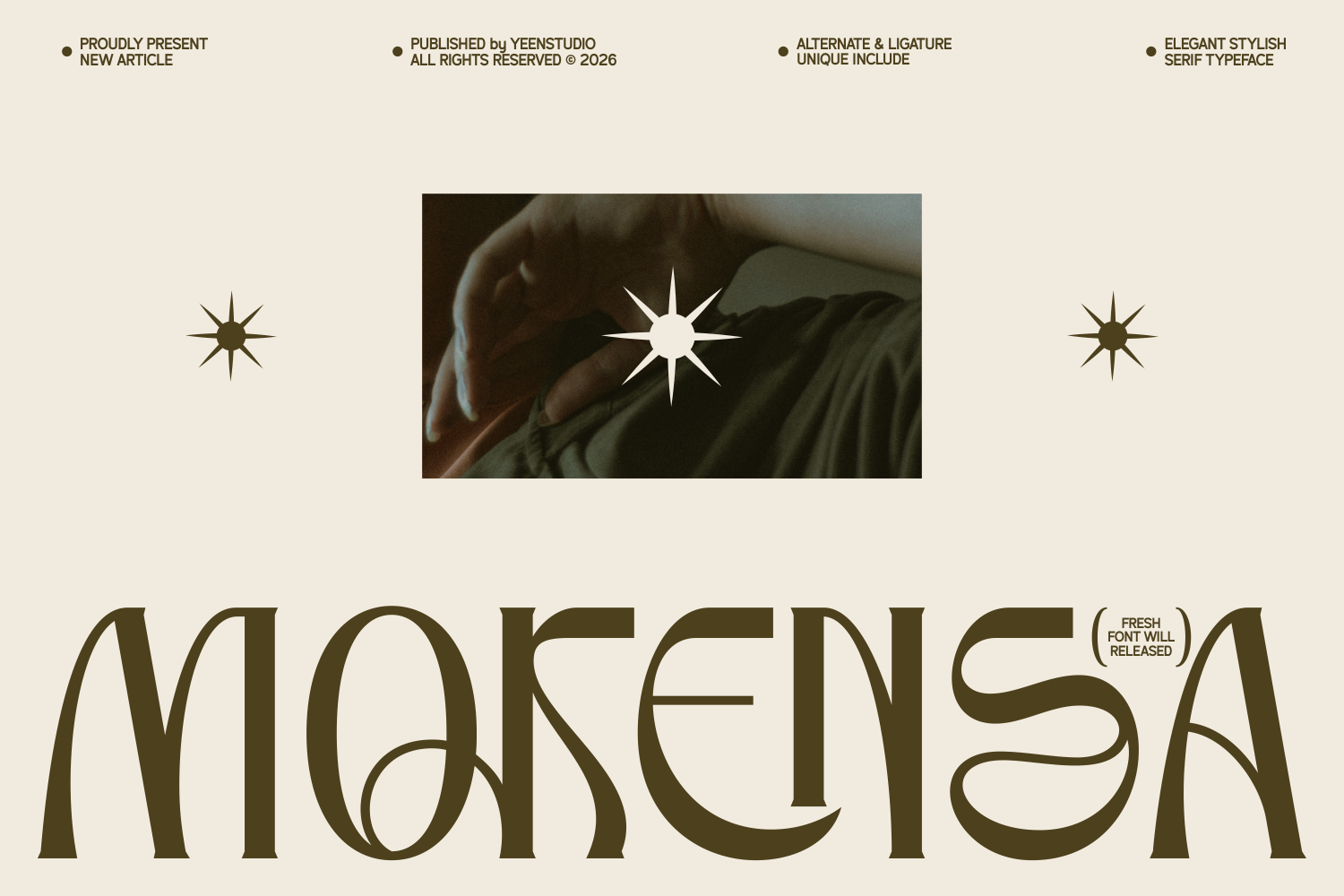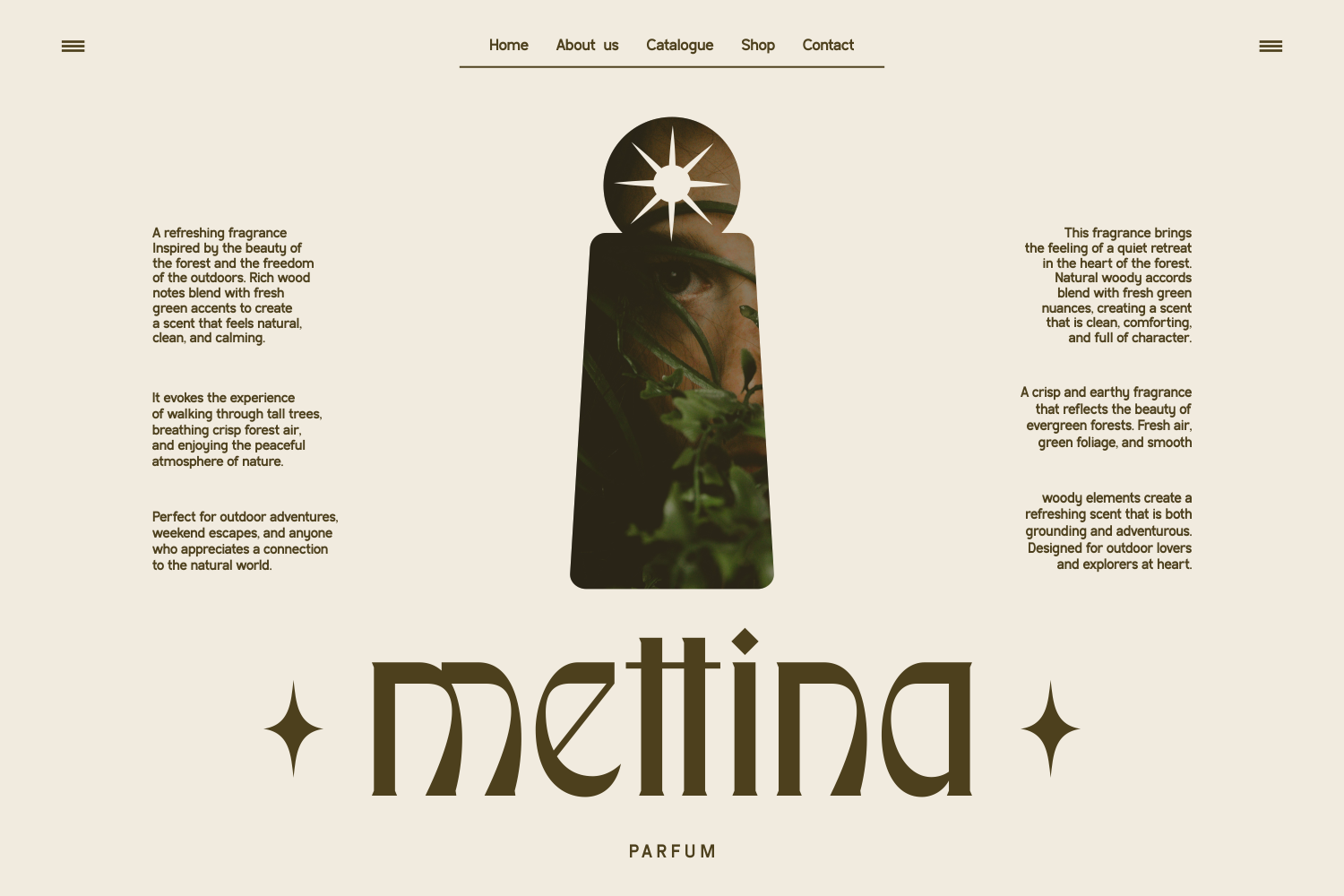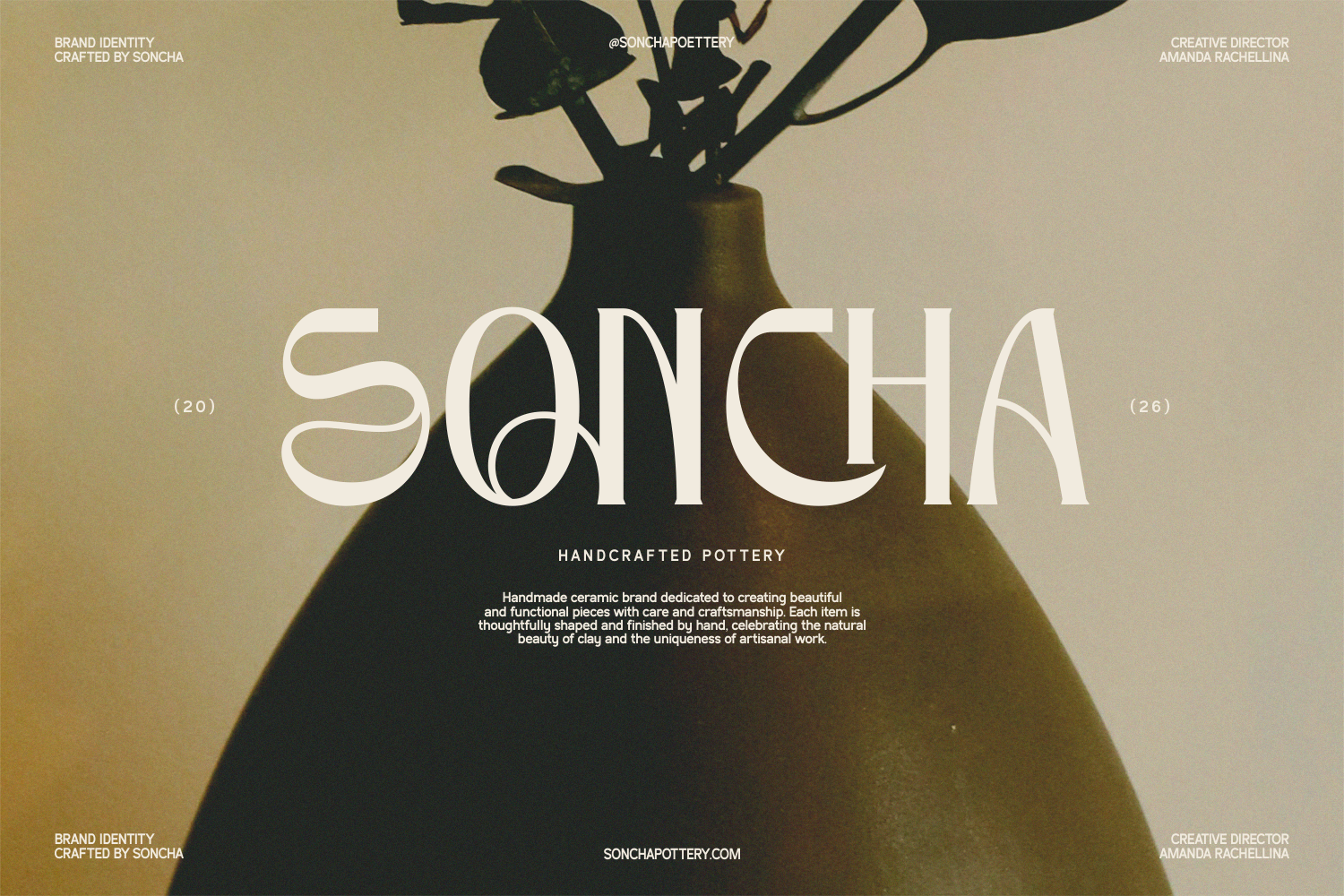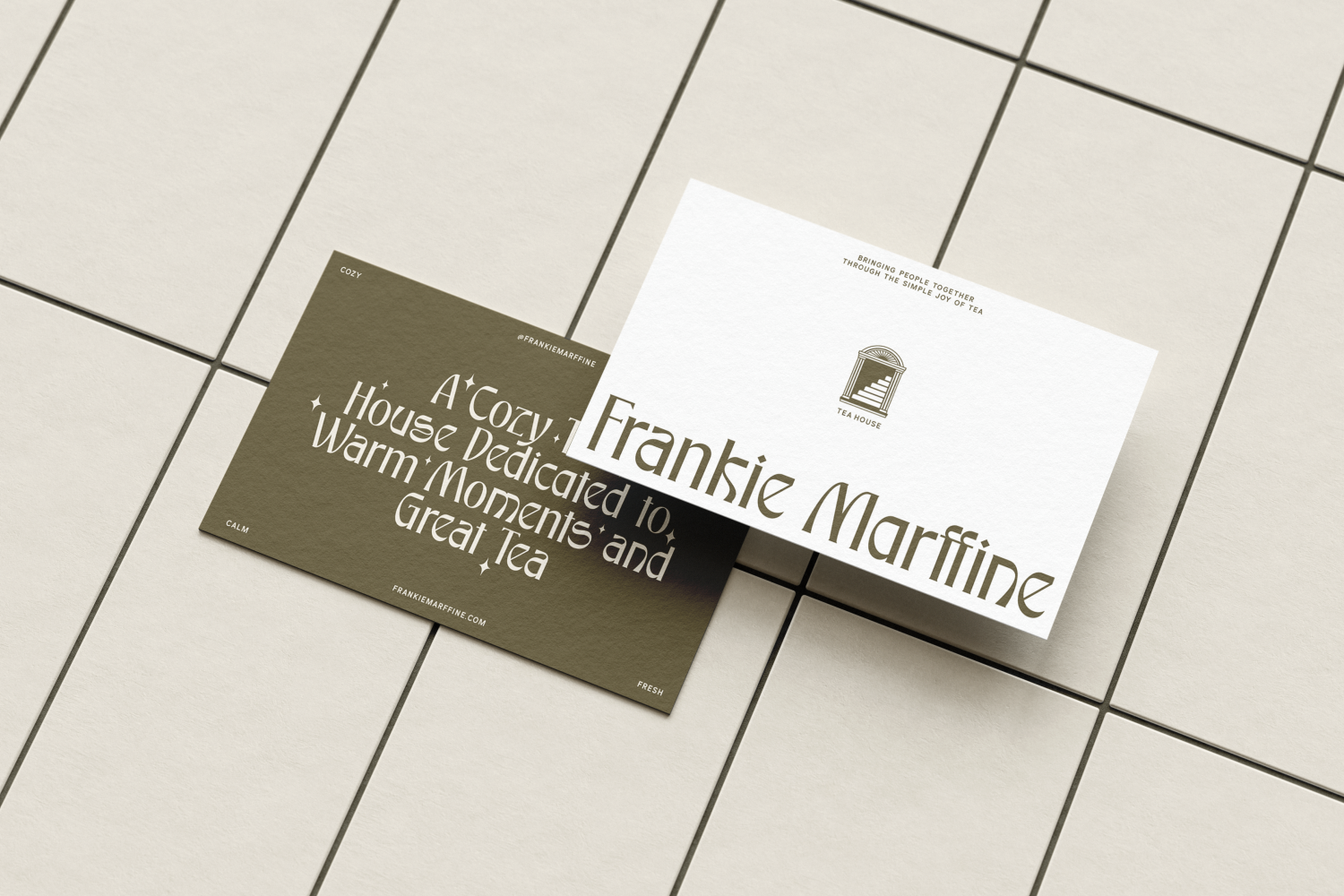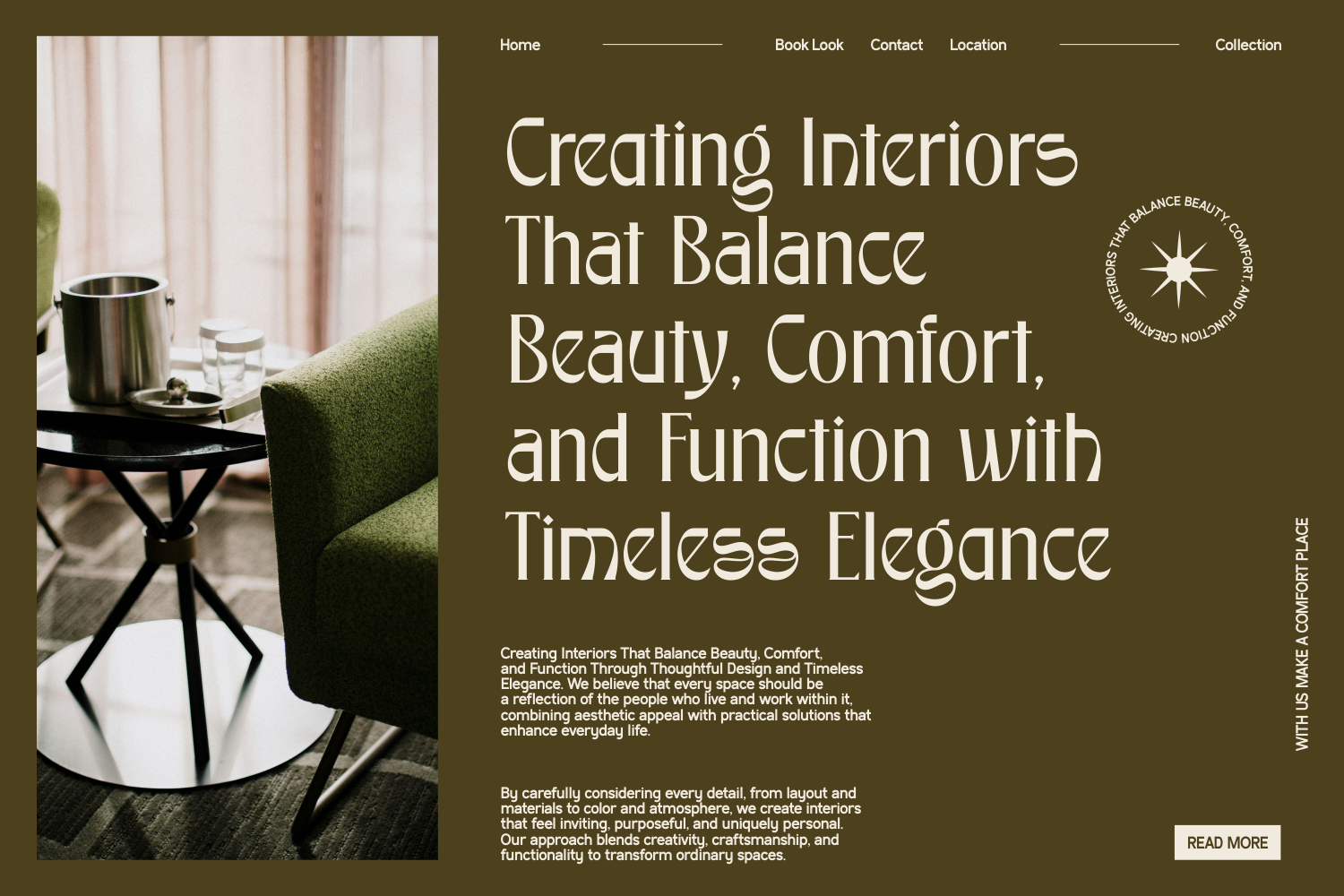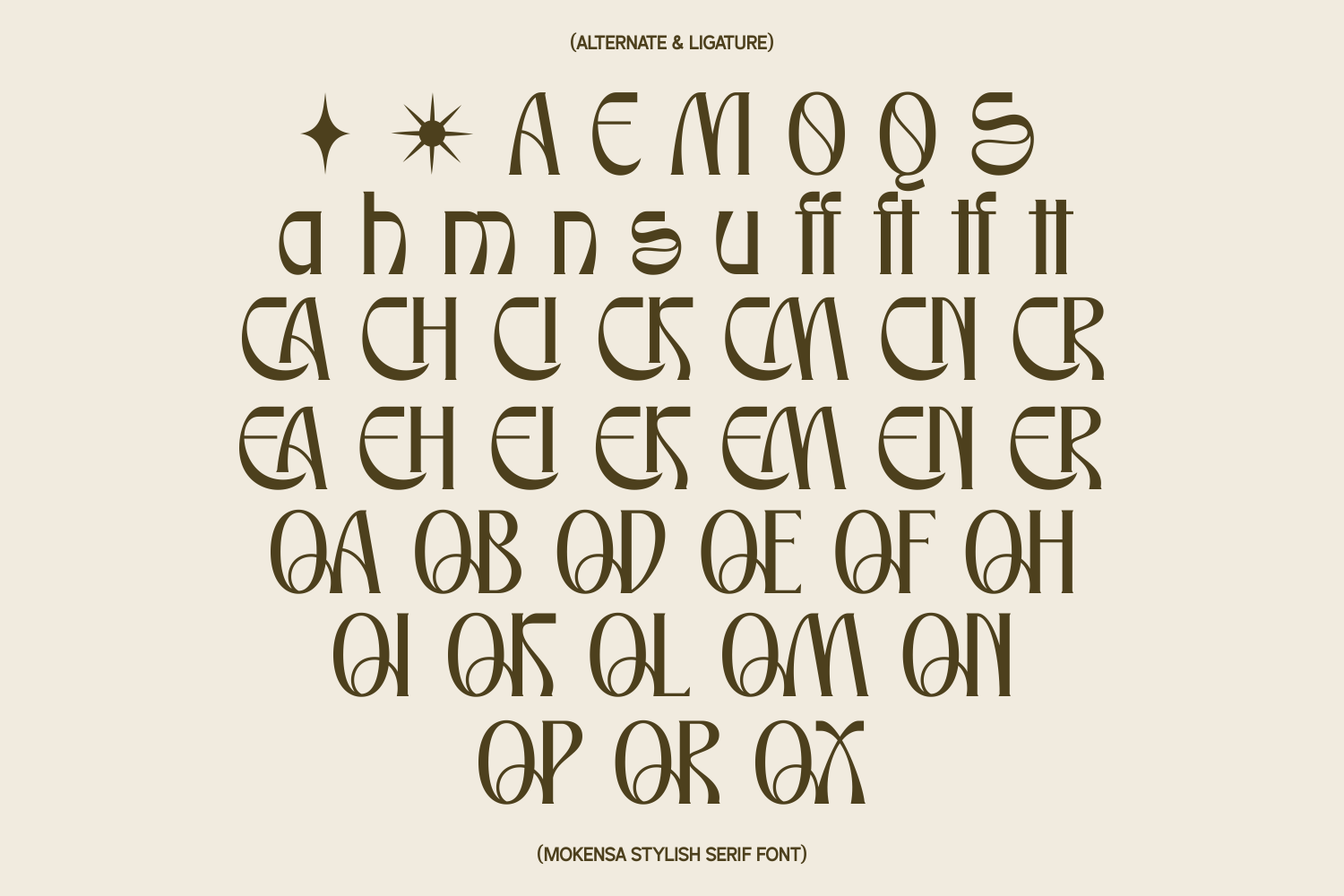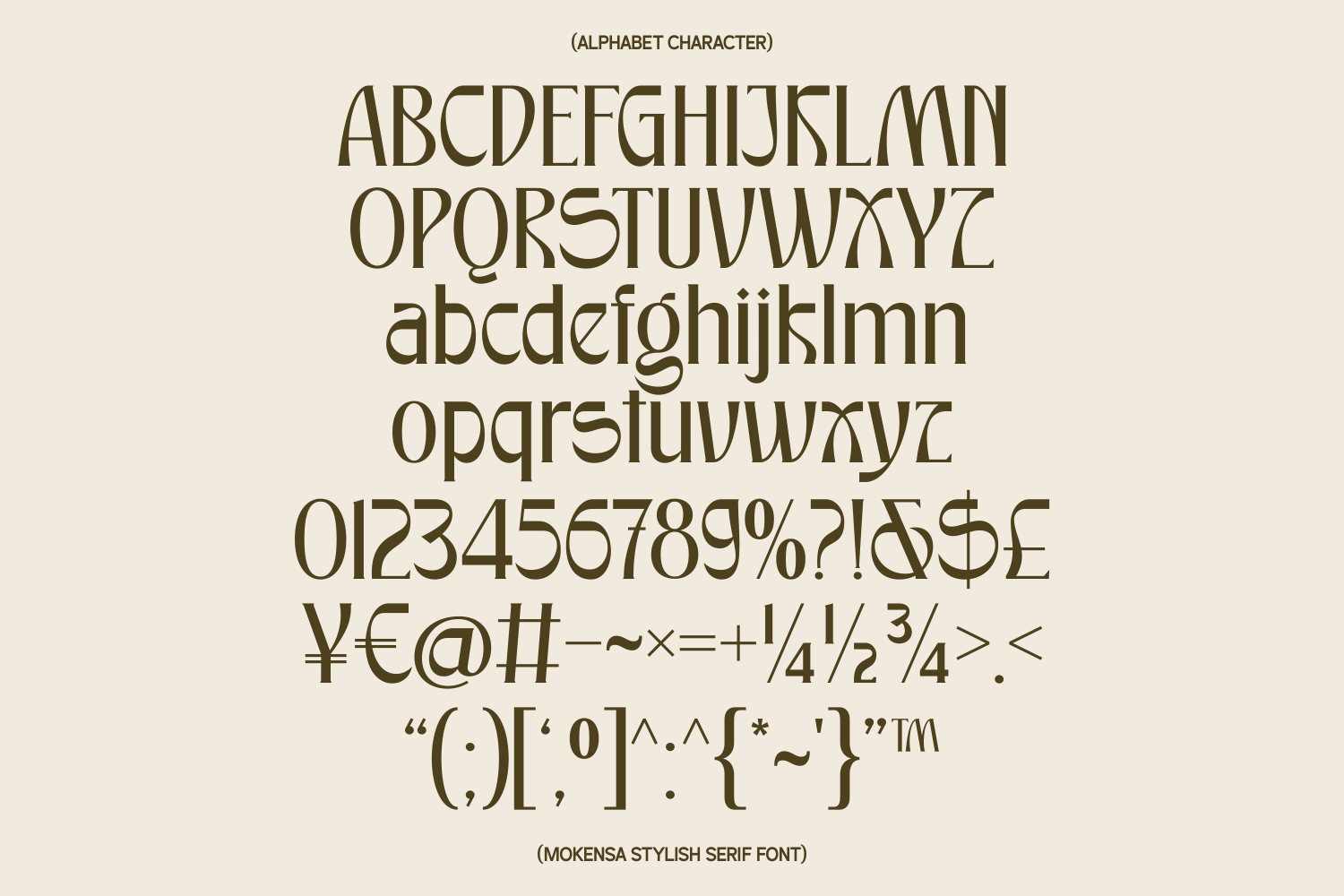
Mokensa – Decorative Serif Display
Introducing Mokensa – Decorative Serif Display
Mokensa is a decorative serif display font with tall, narrow letterforms. Its characters combine rounded curves, thin internal curves, wedge-shaped tips, and sharp vertical cuts, giving the alphabet a formal look.
- Uppercase and lowercase letters
- Numbers and punctuation
- Decorative ligatures
- Stylistic alternates
- Latin multilingual characters